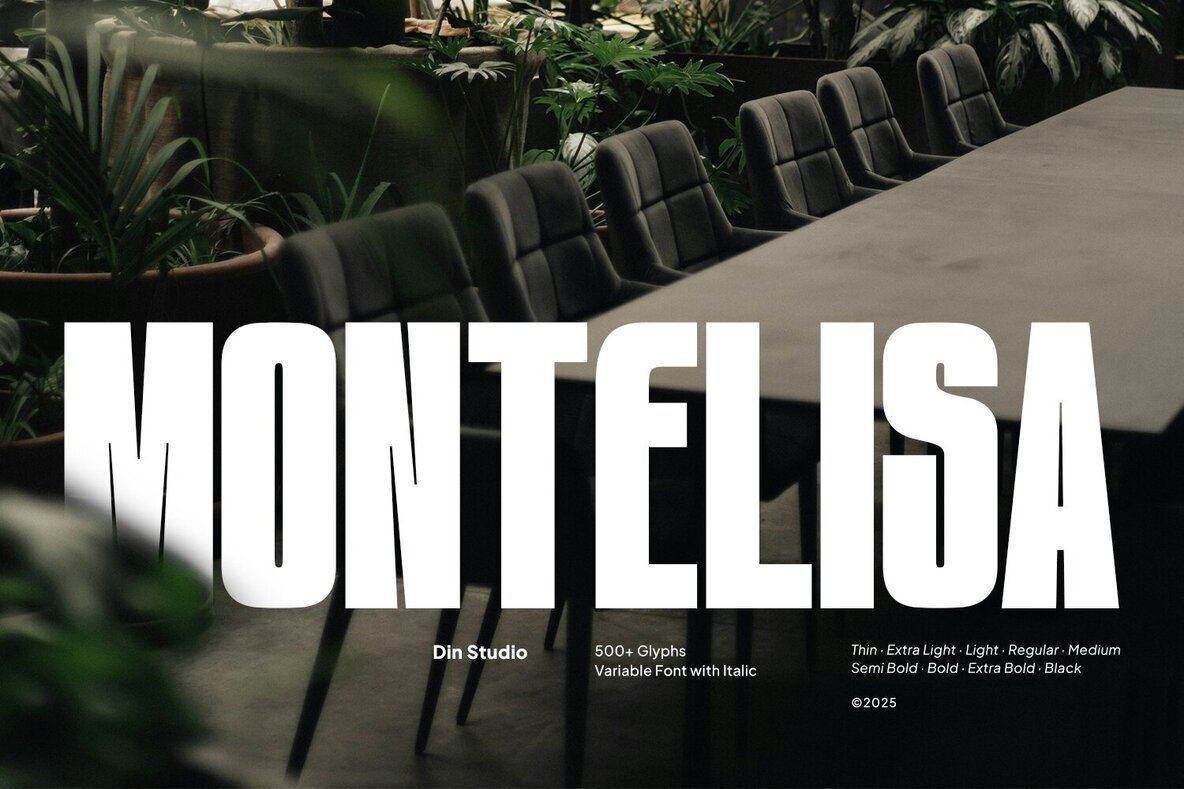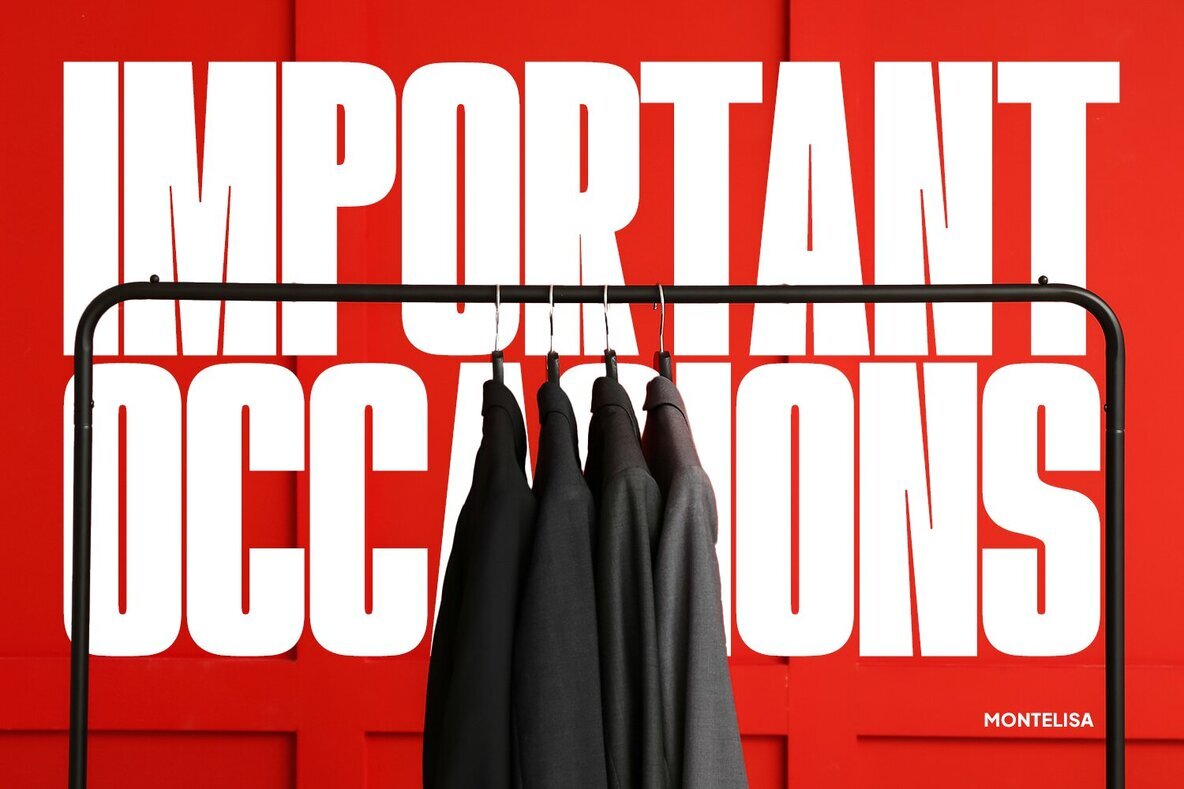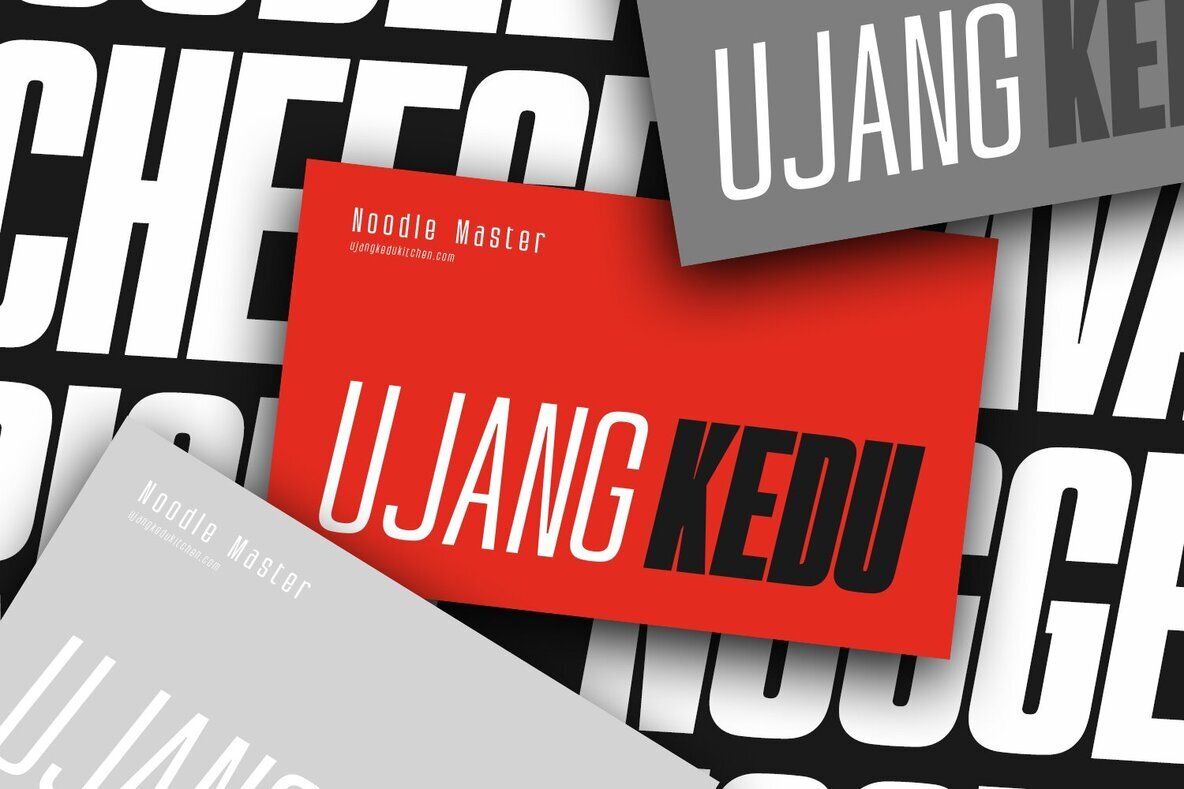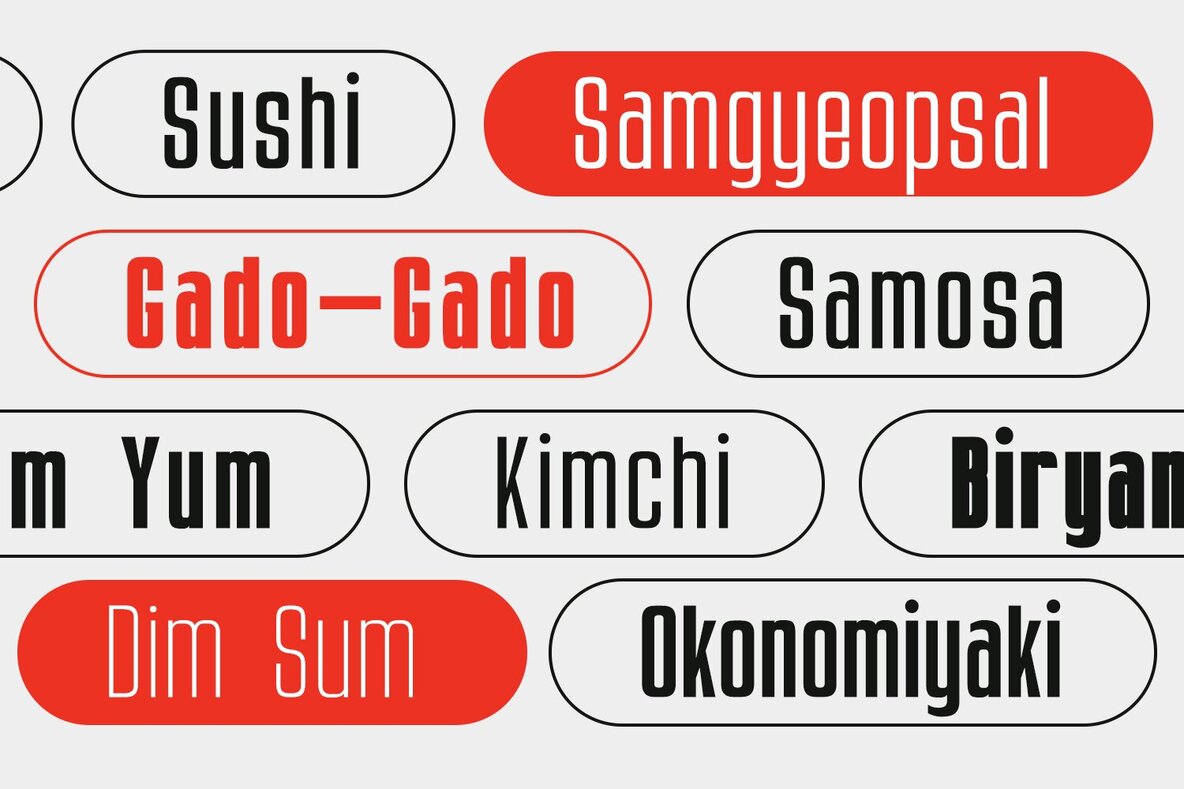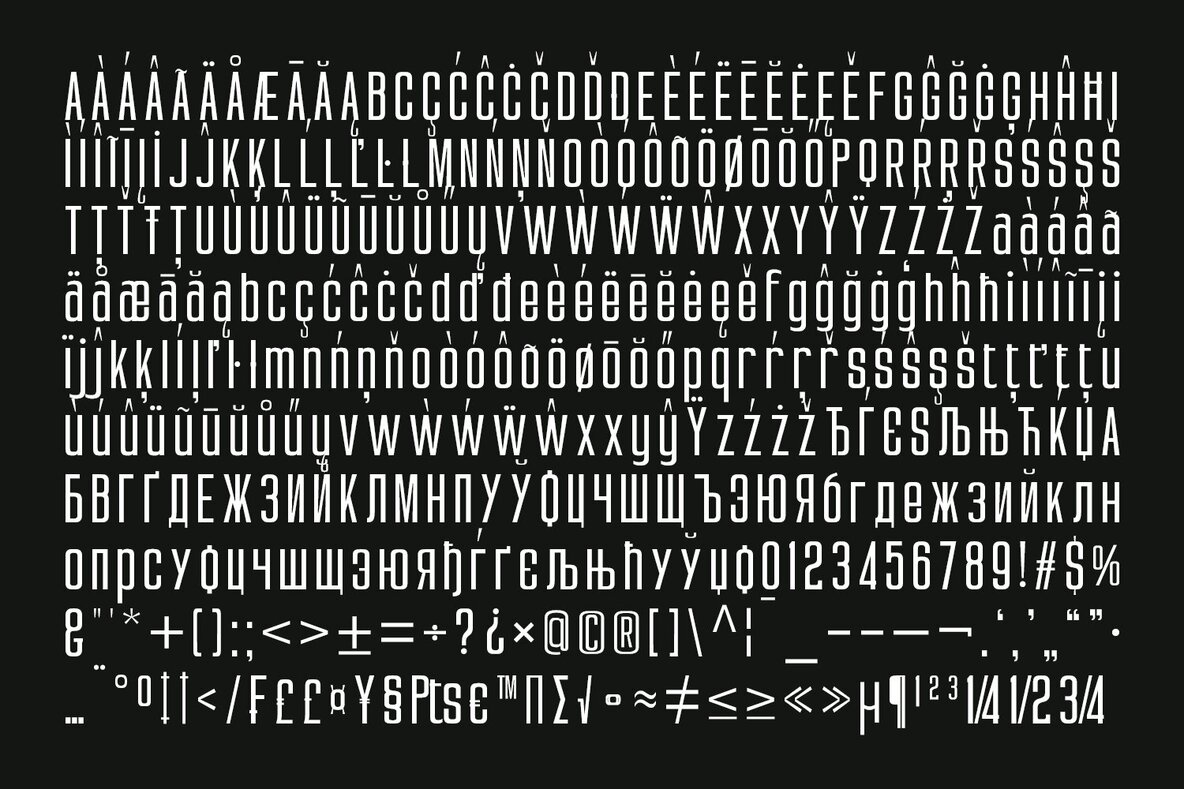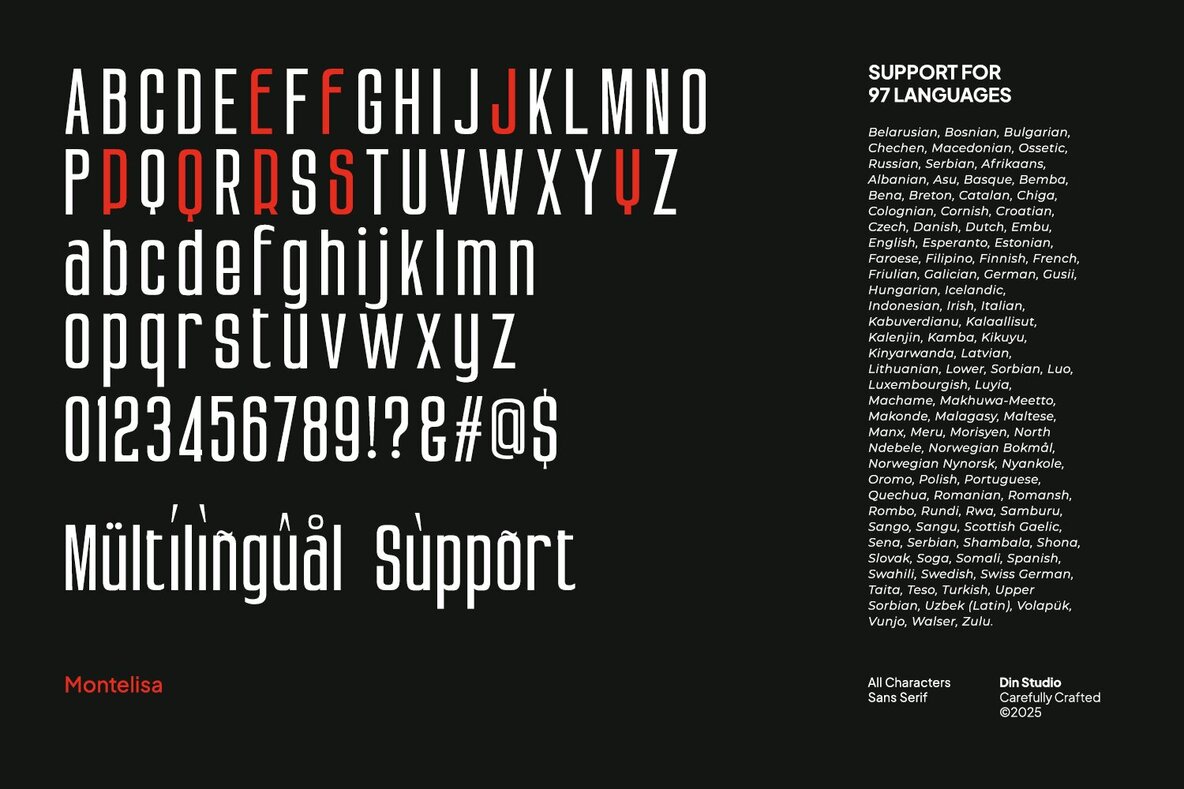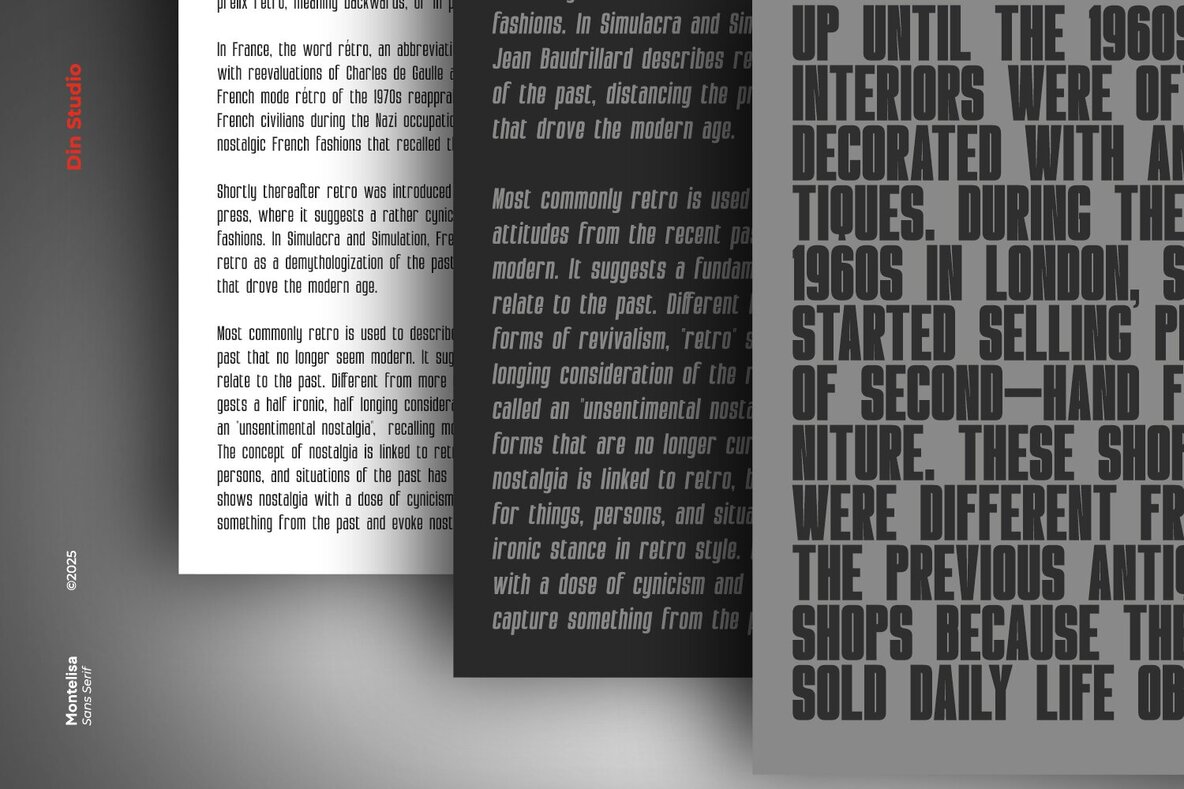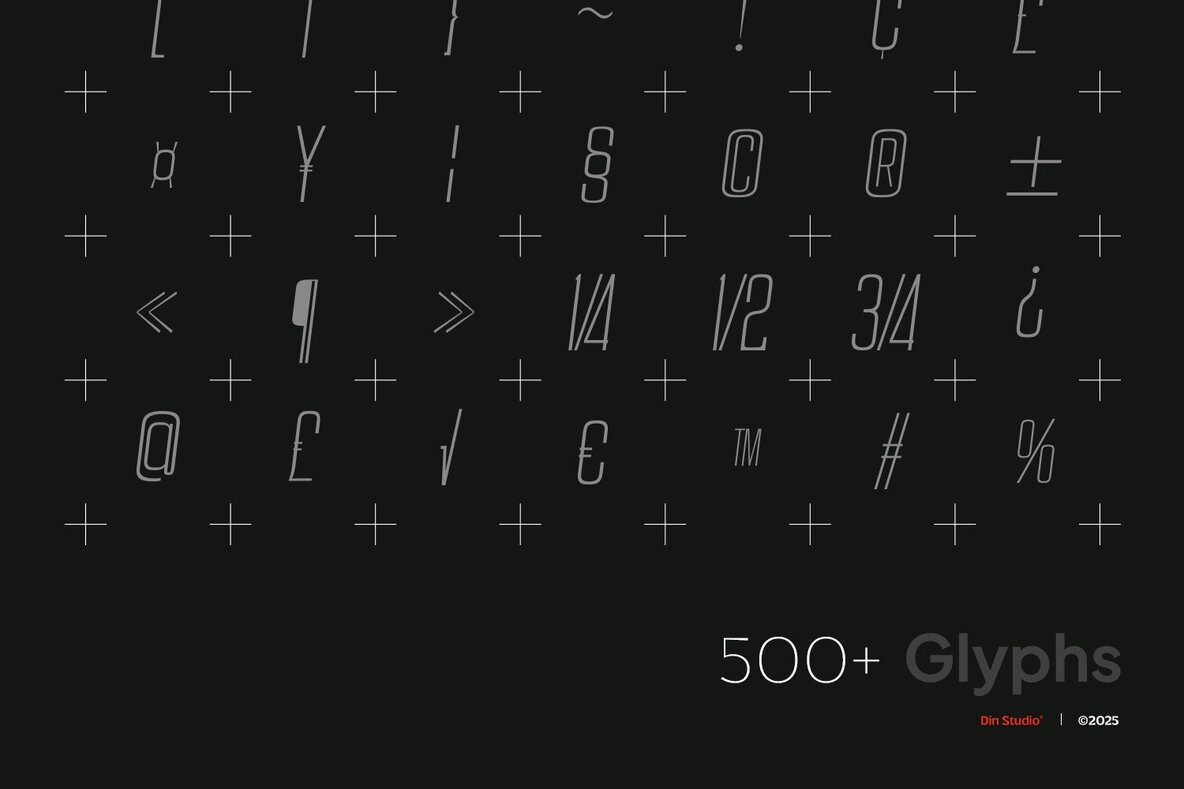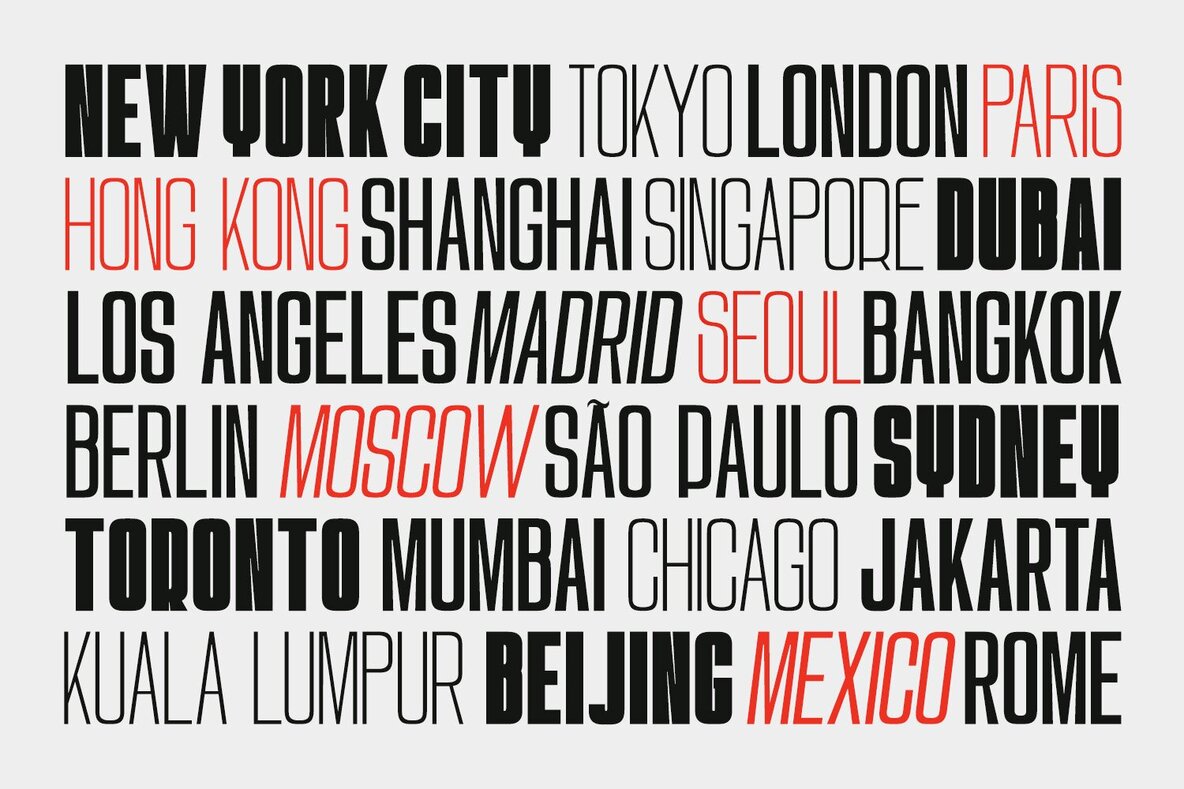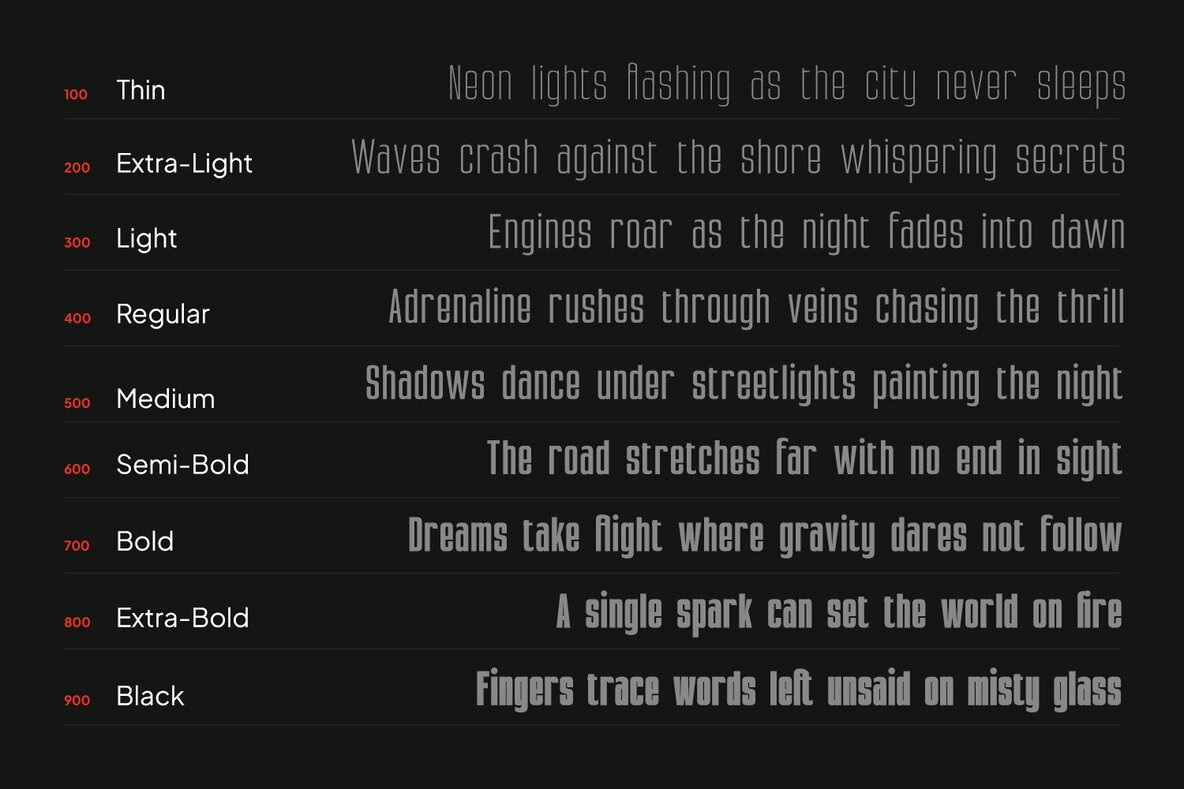
Montelisa Font
Introducing Montelisa, an expertly crafted display sans serif font family designed to make a bold statement. With tall, clean letterforms and smooth transitions from thin to thick, Montelisa offers 9 commanding weights and italic styles, ensuring your designs captivate and engage. Experience unparalleled control over weight and slant with its fully variable font functionality. Perfectly suited for strong branding, eye-catching posters, striking billboards, and impactful headlines, Montelisa is the go-to choice for modern graphic designers. Discover more exciting ways to incorporate this font by exploring the preview.Montelisa Font Family
Features to Elevate Your Design